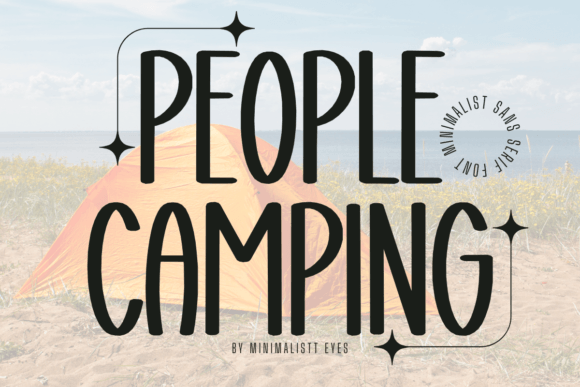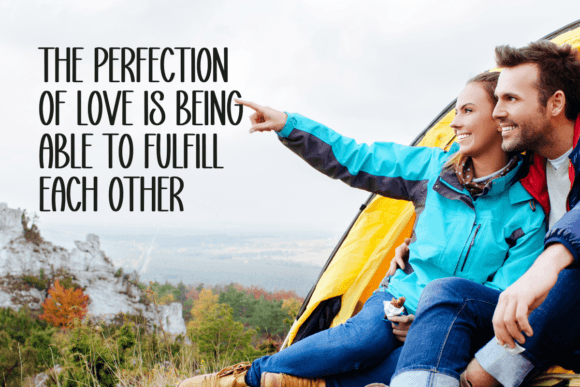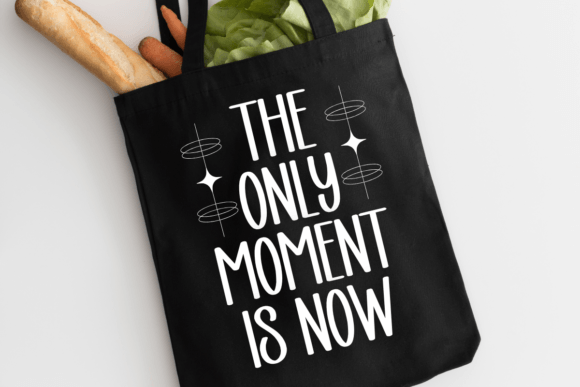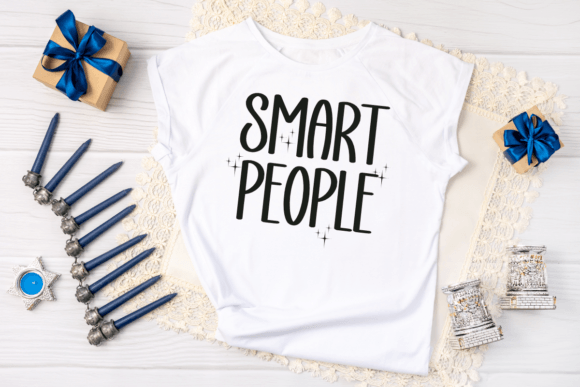
People Camping Font: A Cute Sans Serif for Playful Branding!
About the People Camping Font
Get ready to be inspired by People Camping Font, a fresh and dynamic typeface for modern creators. People Camping a modern and friendly sans-serif font, is a delightful blend of whimsy and clarity. Its playful curves and rounded edges bring a sense of warmth to any design. Perfect for children’s books, invitations, and branding, People Camping radiates a sweet charm that captures attention with its inviting personality.
Its friendly, rounded forms make it ideal for children’s products, playful branding, and cheerful invitations. It also works well in short headlines or taglines where its approachable nature can shine. However, People Camping’s informal style is less suitable for large blocks of text or applications requiring high readability, such as body copy or user interfaces.
Pairing People Camping with a clean sans-serif like Open Sans for body text creates a balanced and harmonious design. For a more playful feel, consider pairing it with a handwritten script font for logos or decorative elements. A geometric sans-serif could offer a nice contrast, providing structure and sophistication.
The font’s overall personality is best described as cheerful and approachable, conveying a sense of fun and warmth without being childish or overly simplistic. It’s perfect for brands targeting a younger audience or those emphasizing friendly, approachable communication.
People Camping Font Usage Examples
People Camping Font Example